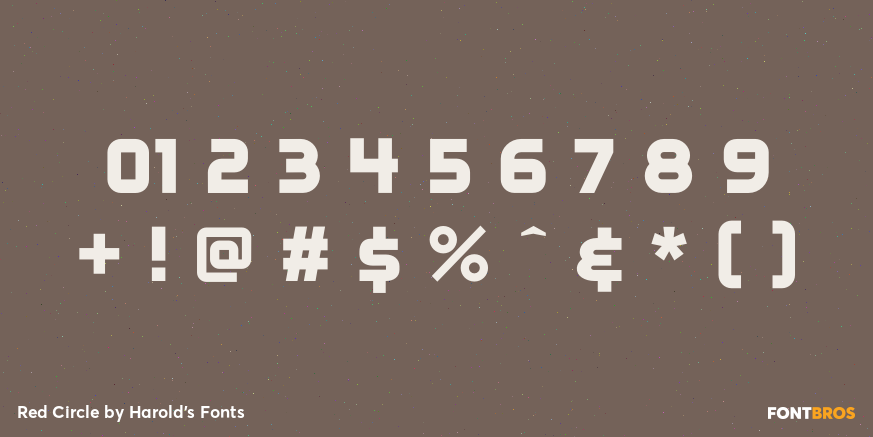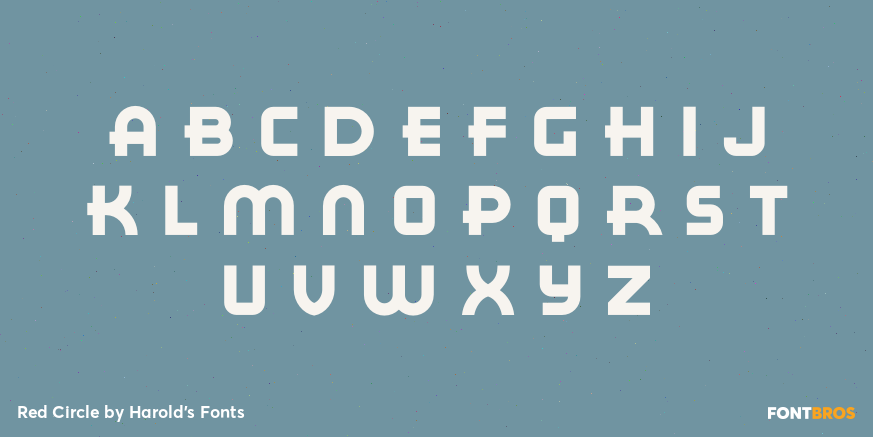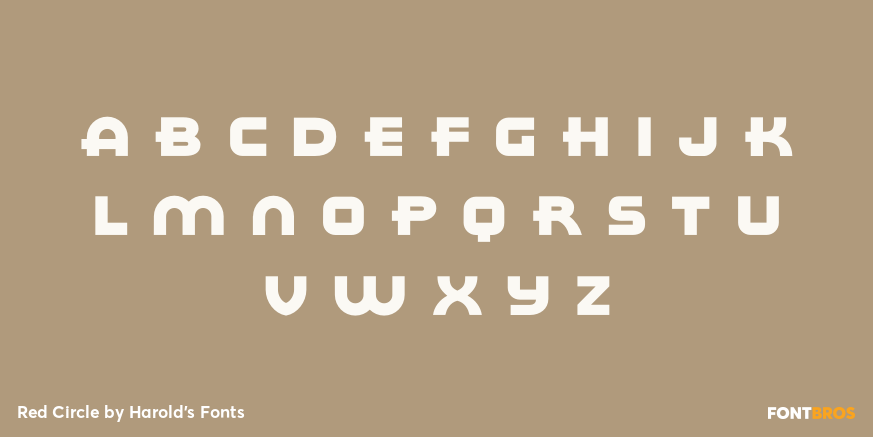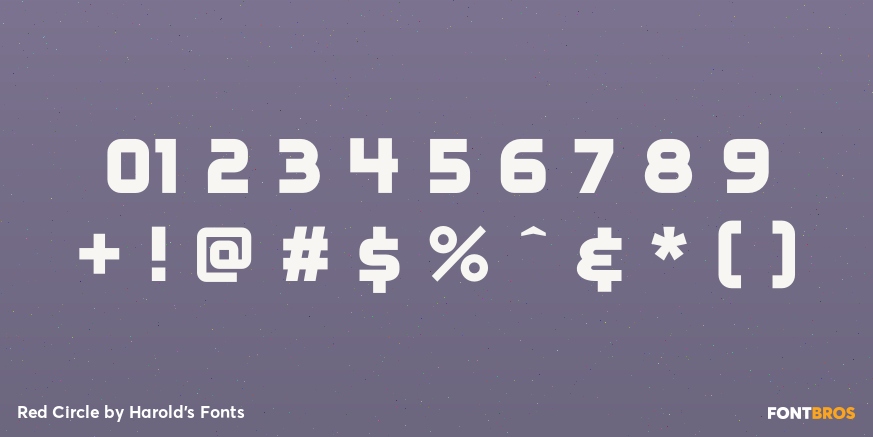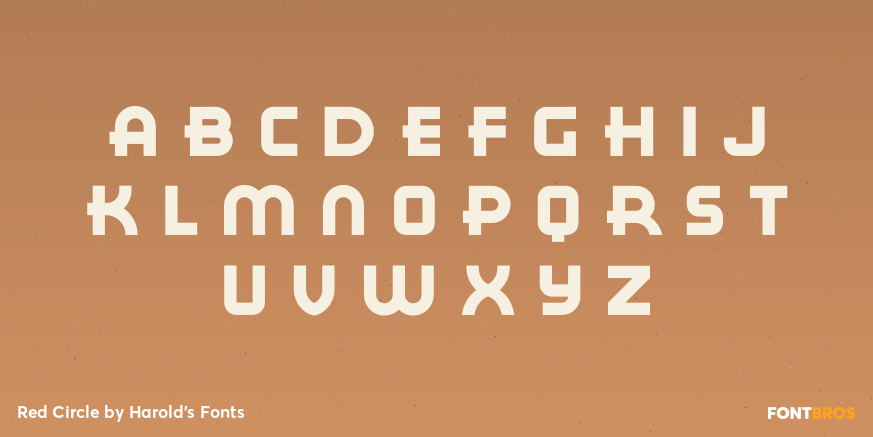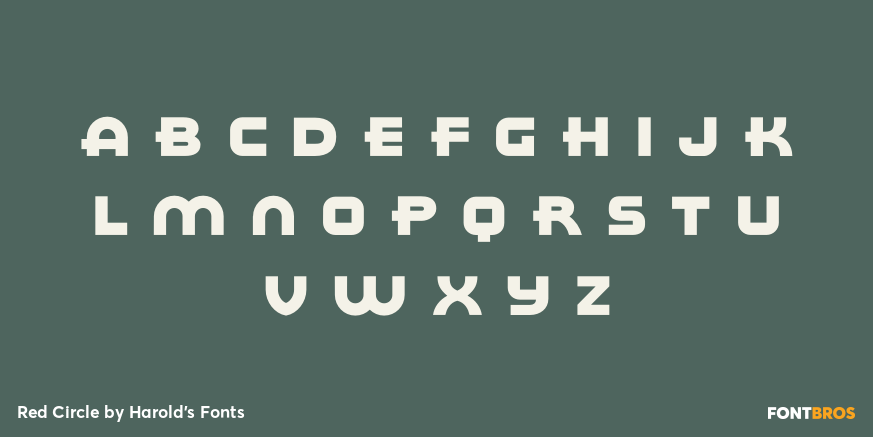
Red Circle
Font Family by Harold's Fonts
RED CIRCLE is a bold and stylish geometric sans serif with its roots in Art Deco design. It was inspired by the hand lettering formerly used on Eight O'Clock coffees. Once associated with A&P stores, Eight O?Clock coffees, including Bokar and Red Circle varieties, were the most popular brand in the US from the 1930s, the age of Art Deco.
Large and small caps, with alternate letterforms accessed thru the Opentype feature.